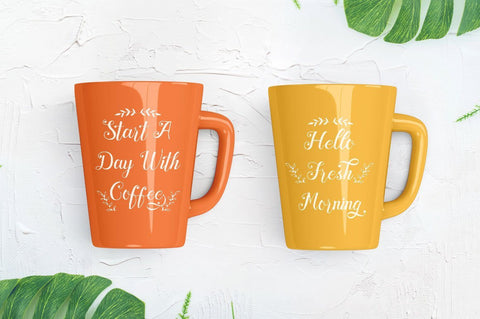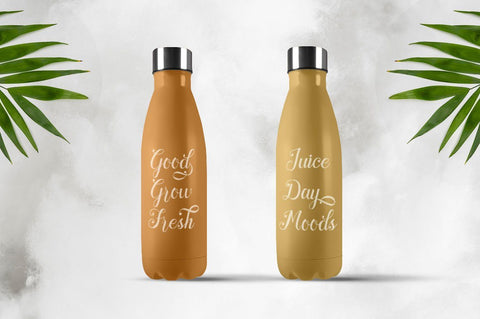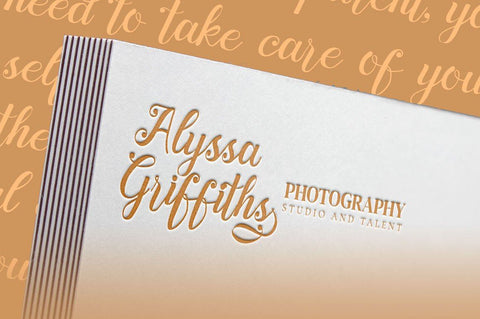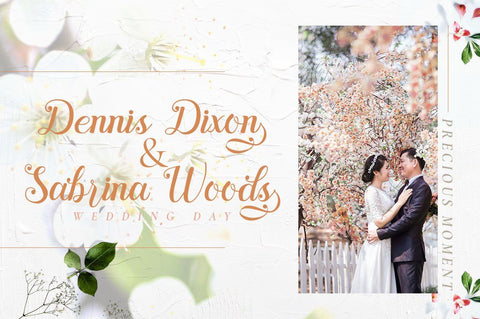
Something - Cursive Handwritten Font
Something Cursive Handwritten Font is an incredibly distinct, delicate and timeless handwritten font. It looks stunning on wedding invitations, thank you cards, quotes, greeting cards, logos, business cards and every other design which needs a handwritten touch.